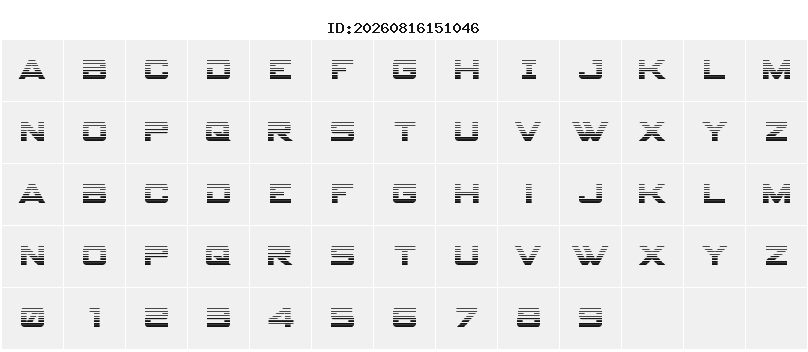
Spy Agency Gradient Preview
• Font Name: Spy Agency Gradient
• Full Font Name: Spy Agency Gradient Regular
About Spy Agency Gradient.ttf
Spy Agency Gradient.ttf is a modern, elegant sans-serif font designed for ultimate readability and visual harmony. Perfect for branding, headlines, web design, and print materials.